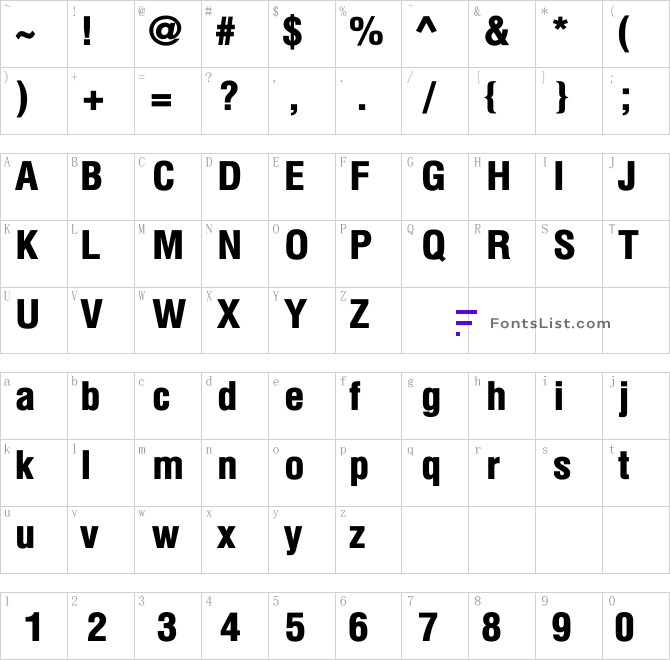
- Font Name:BD Hanover Black
BD-Hanover-Black.ttf is a very beautiful artistic font, BD-Hanover-Black.ttf is widely used in the design and printing of various books and pictures,BD-Hanover-Black.ttf has a strong visual impact,BD-Hanover-Black.ttf is a commonly used font in newspapers, magazines and books, and is used in posters, e-commerce Poster design, store design, logo design, font design and other fields.BD-Hanover-Black.